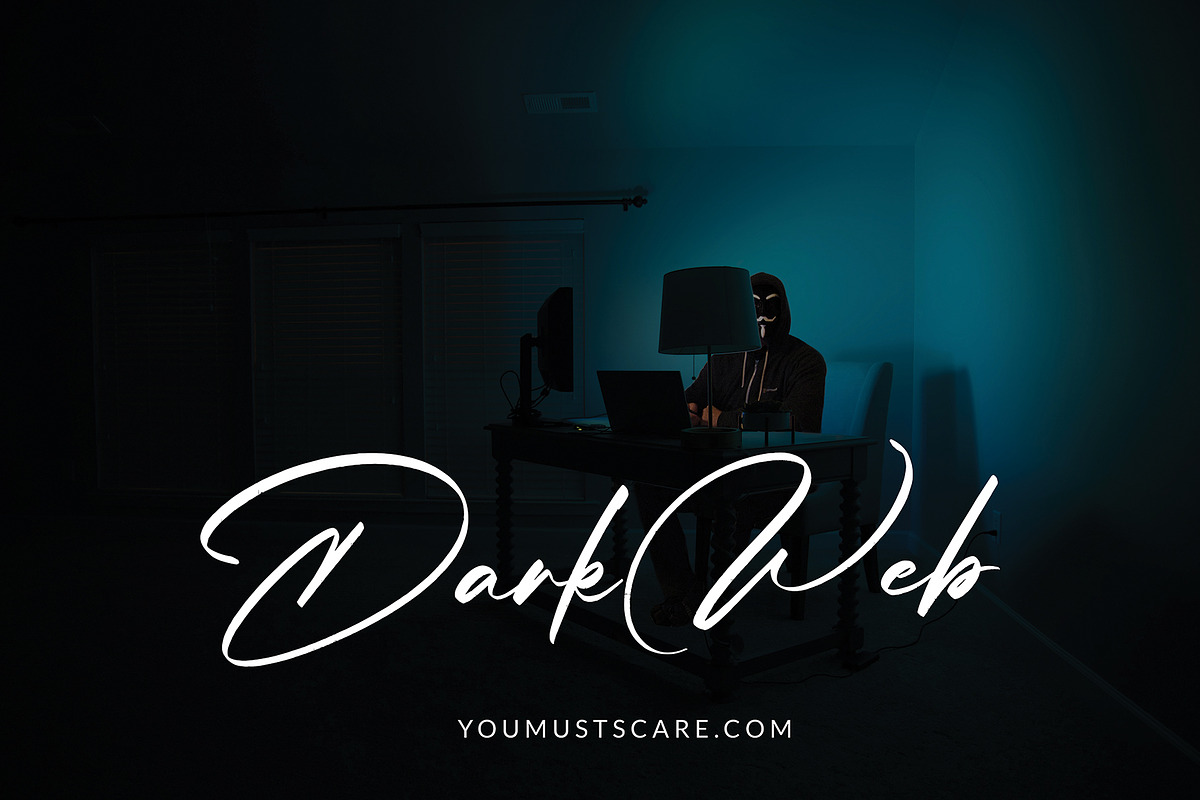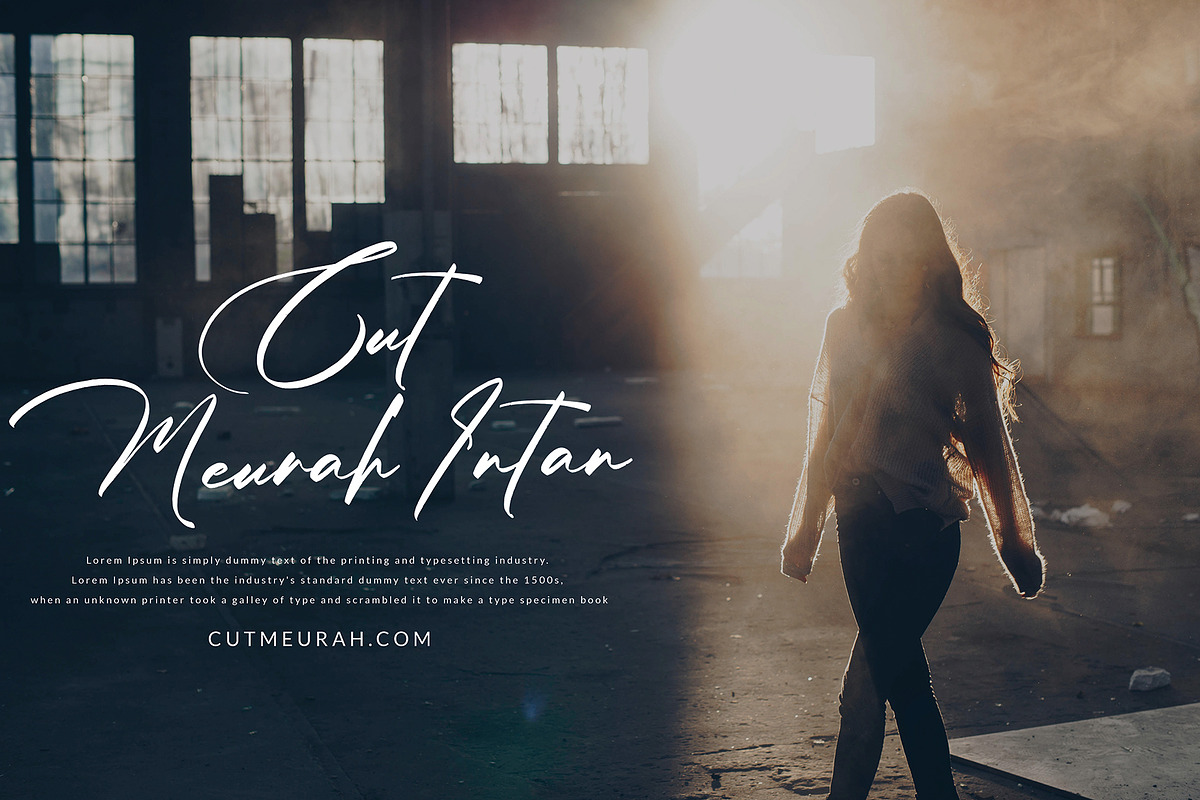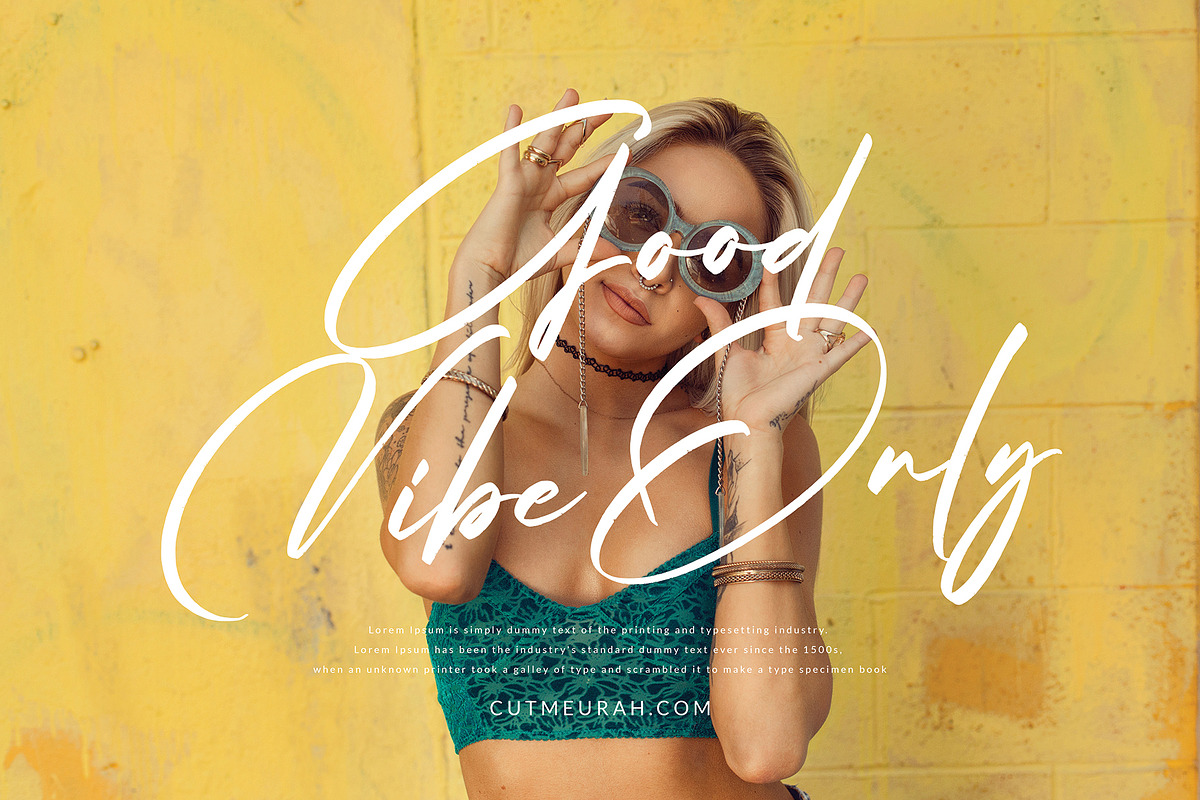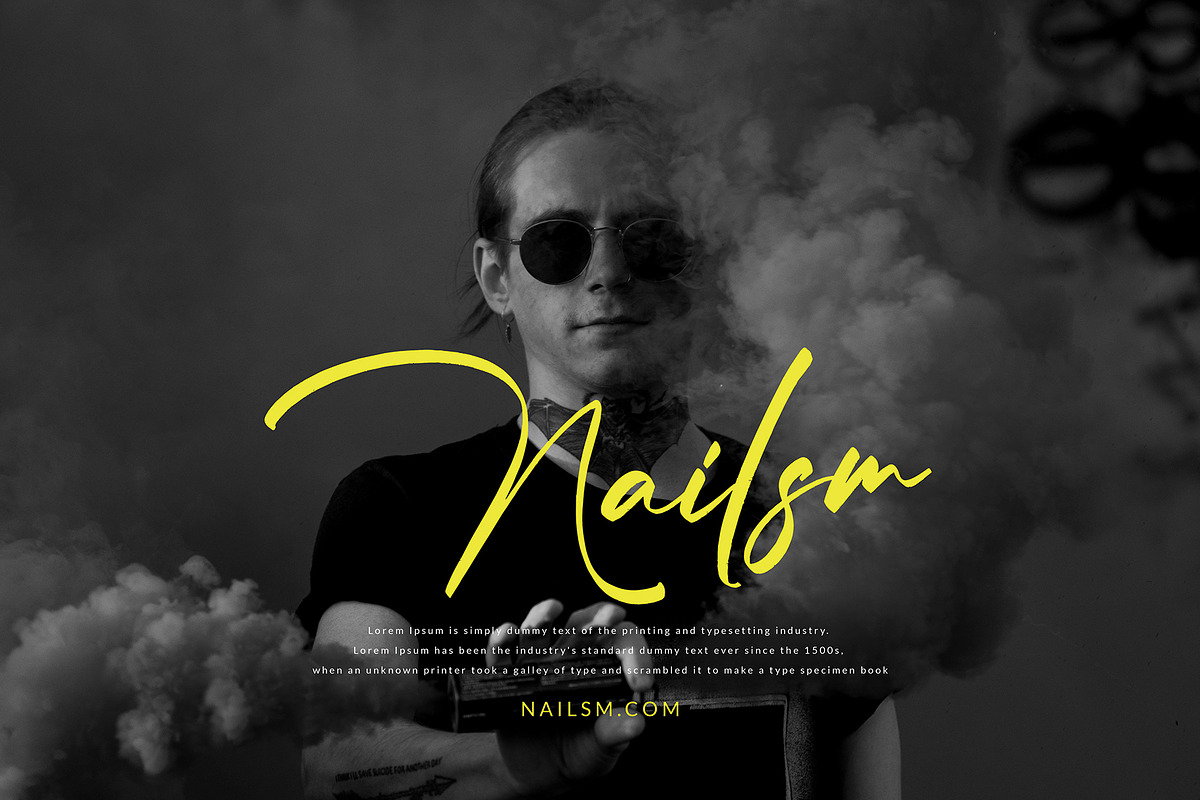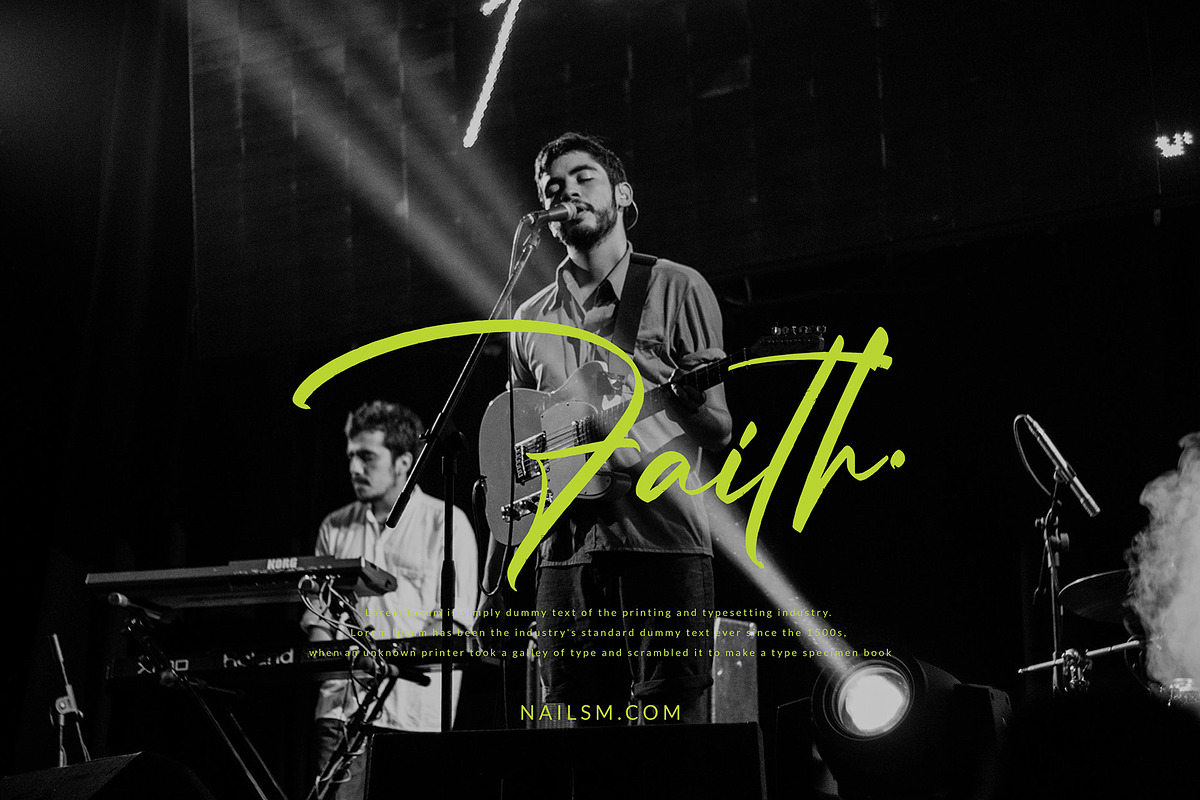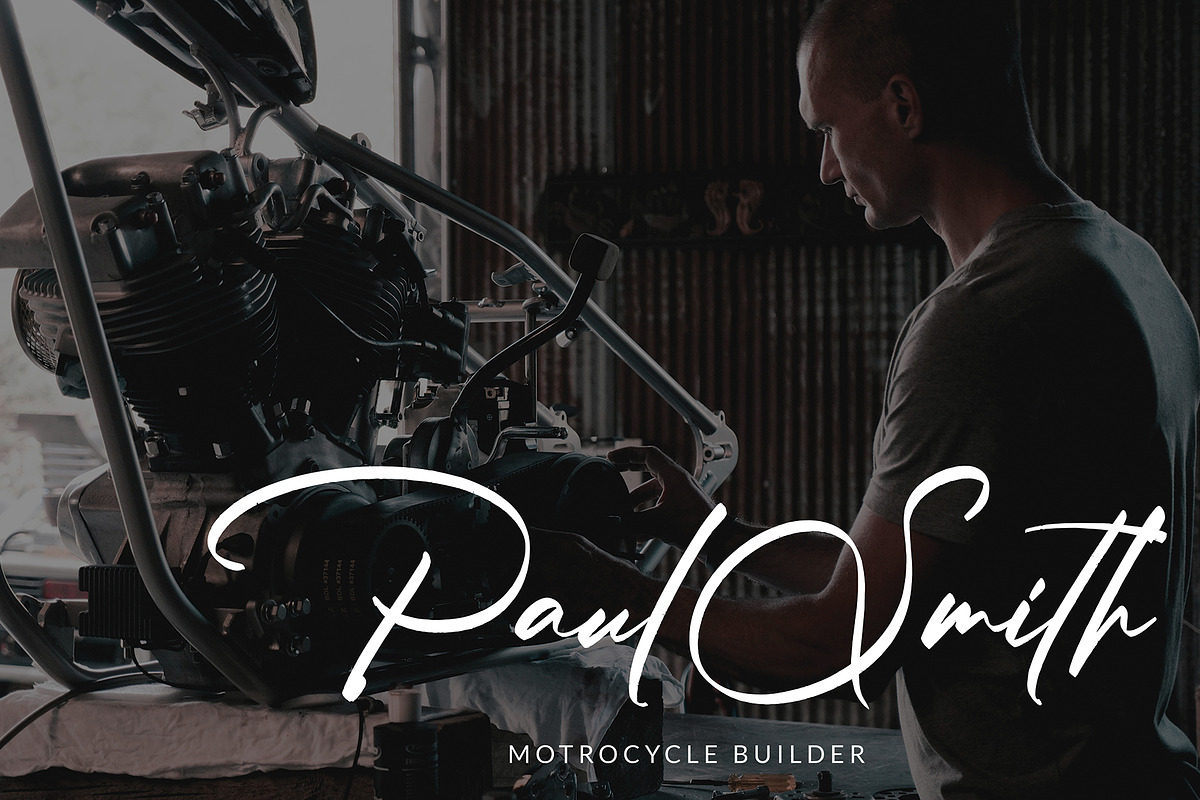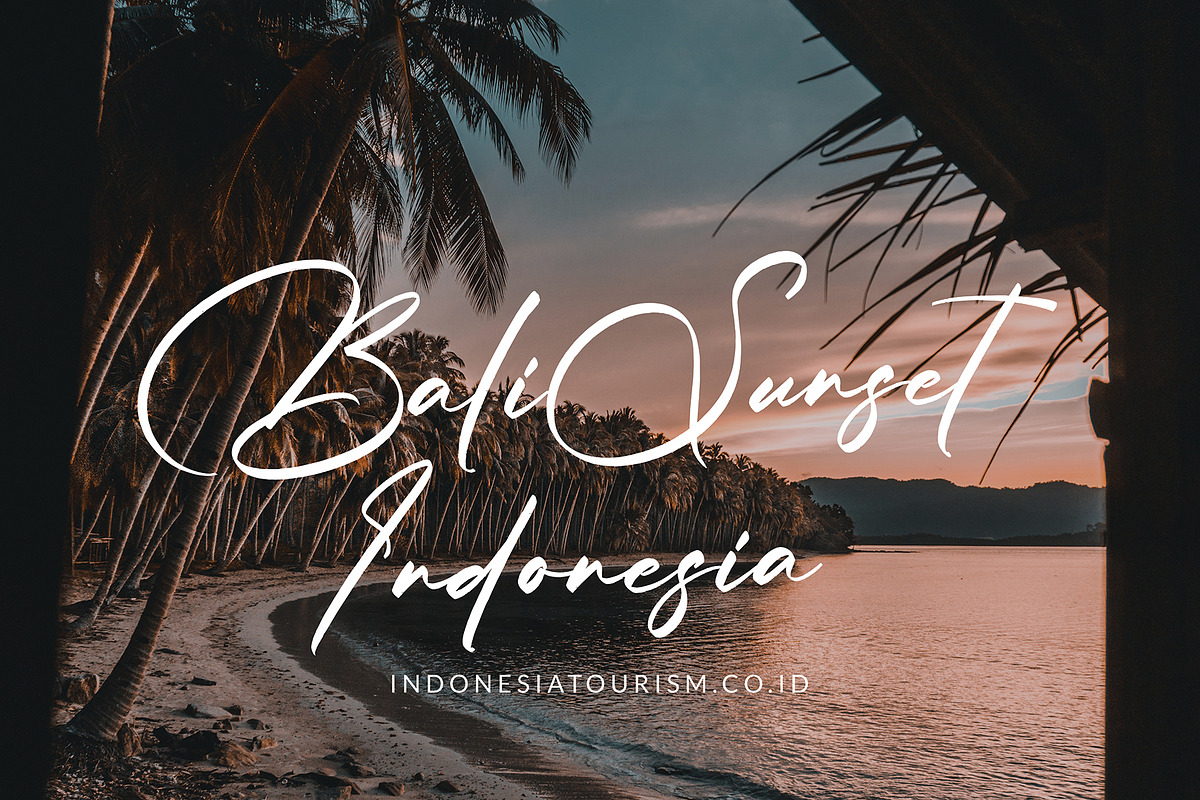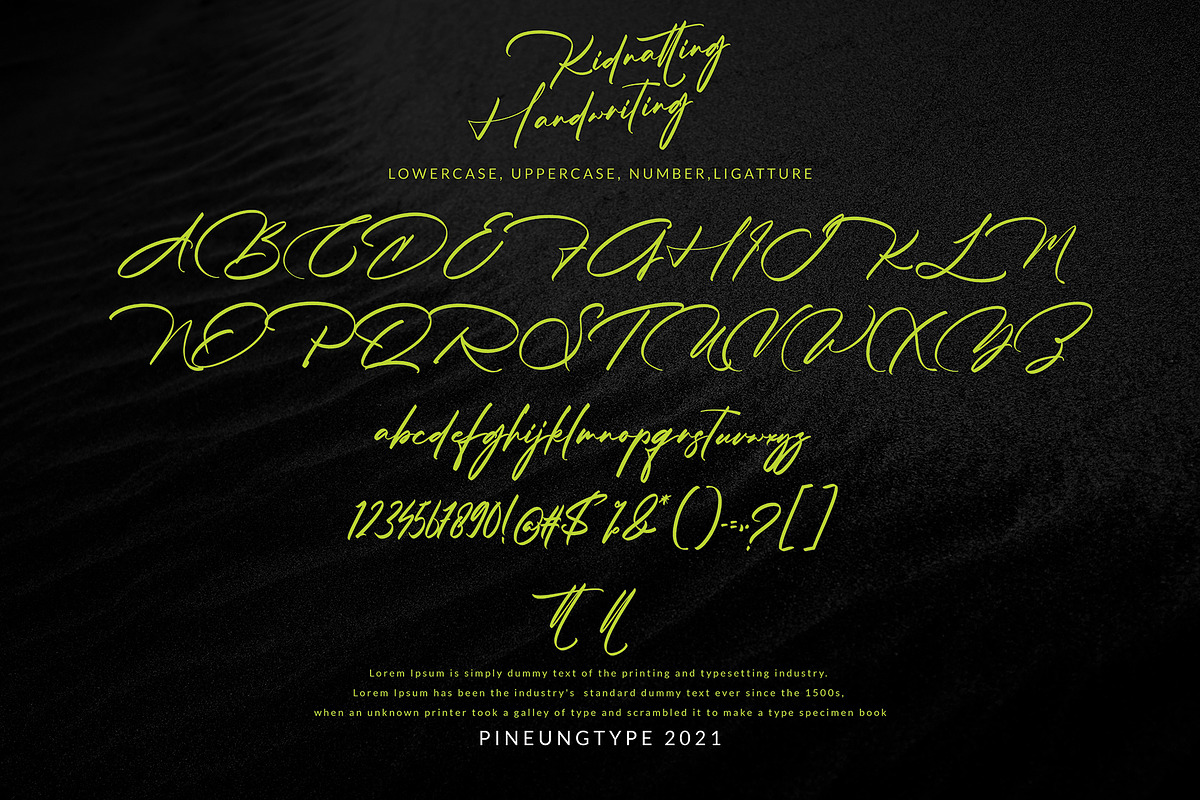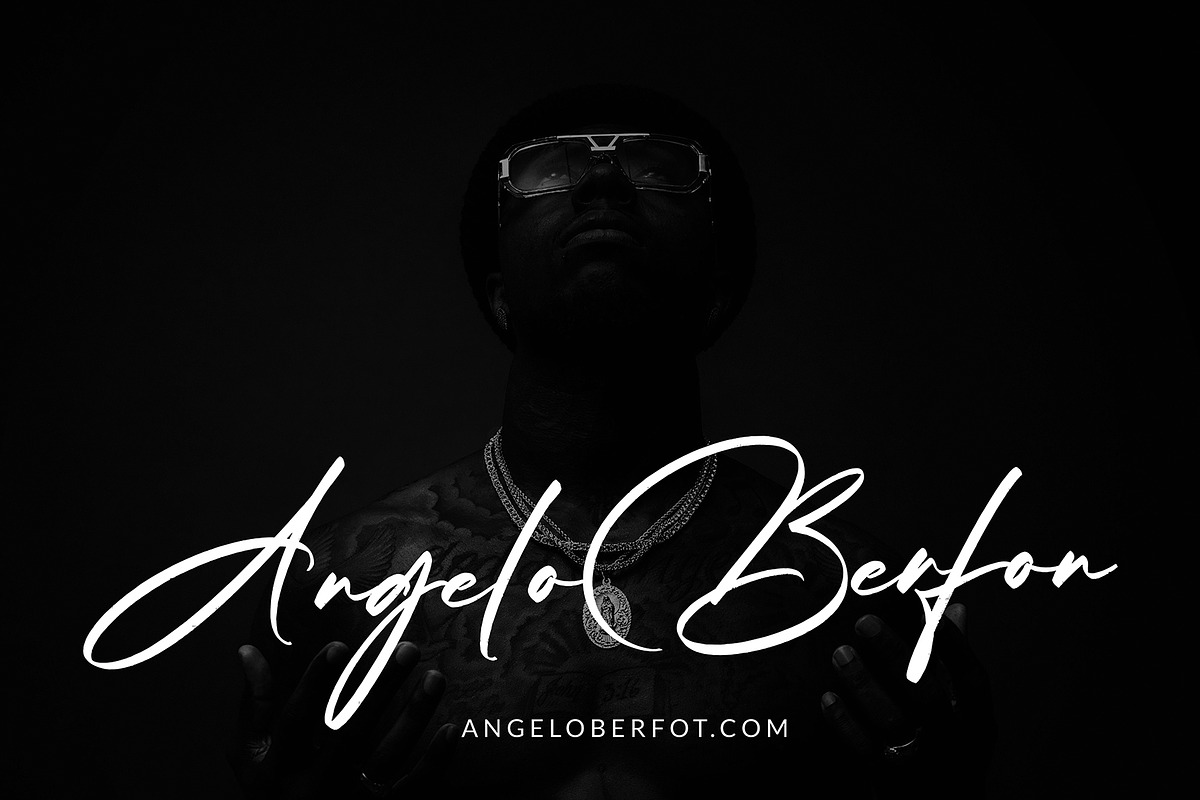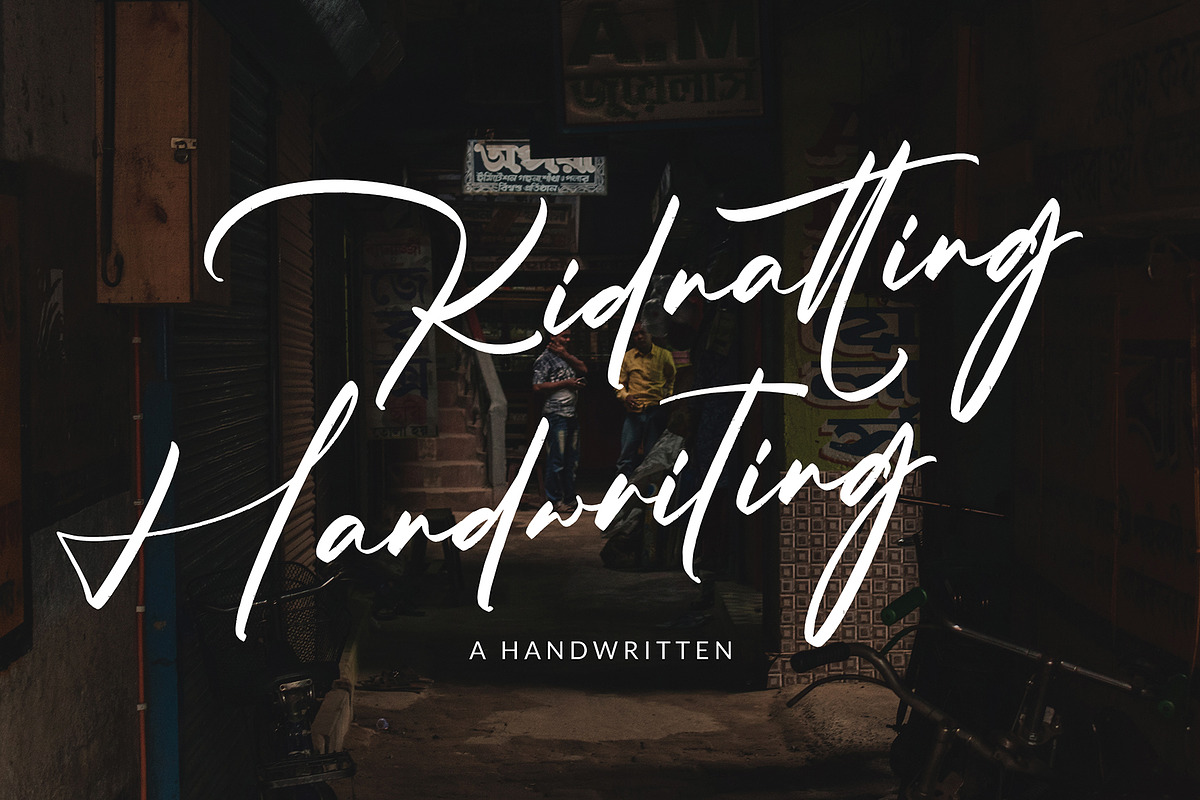
Kidnatting
KidnattingFaith font with new style, this font will perfect for many different project ex: quotes, logo, blog header, poster, banding, fashion, apparel, letter, invitation, stationery, etc...